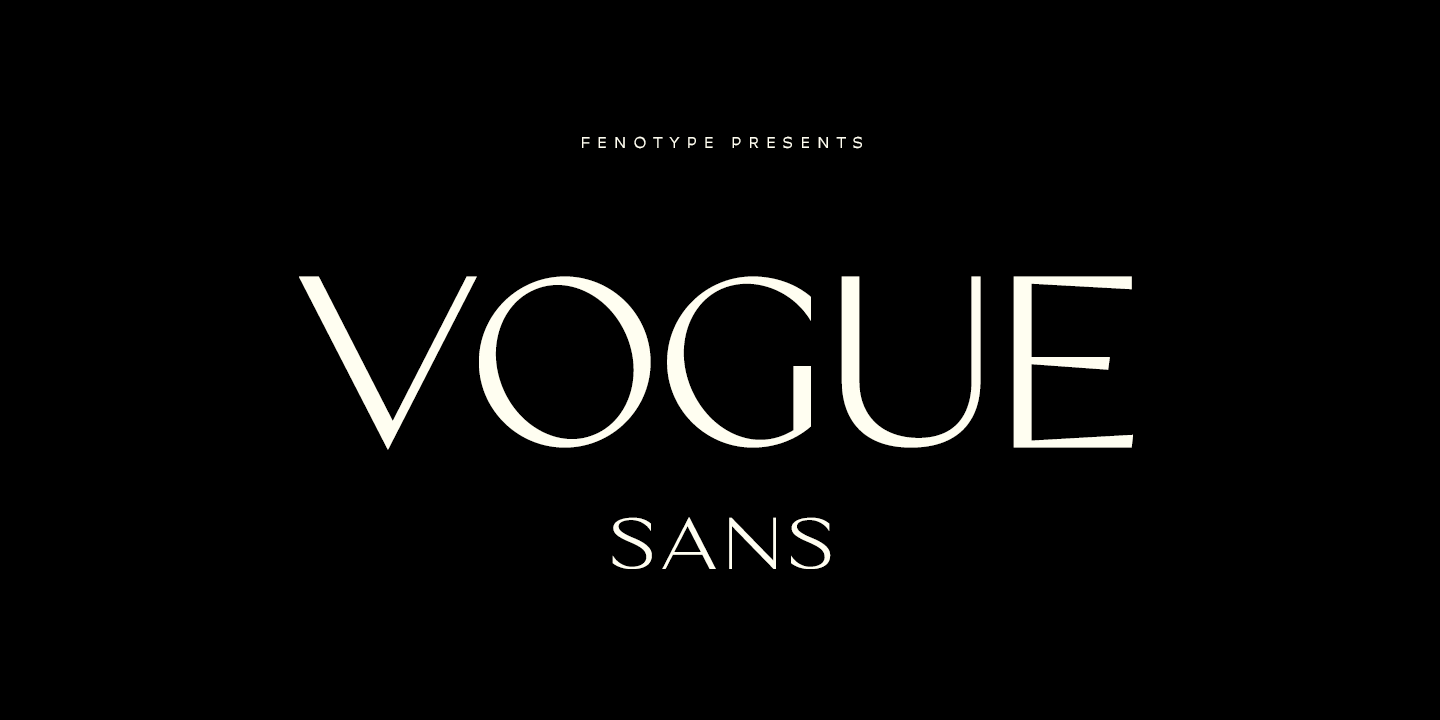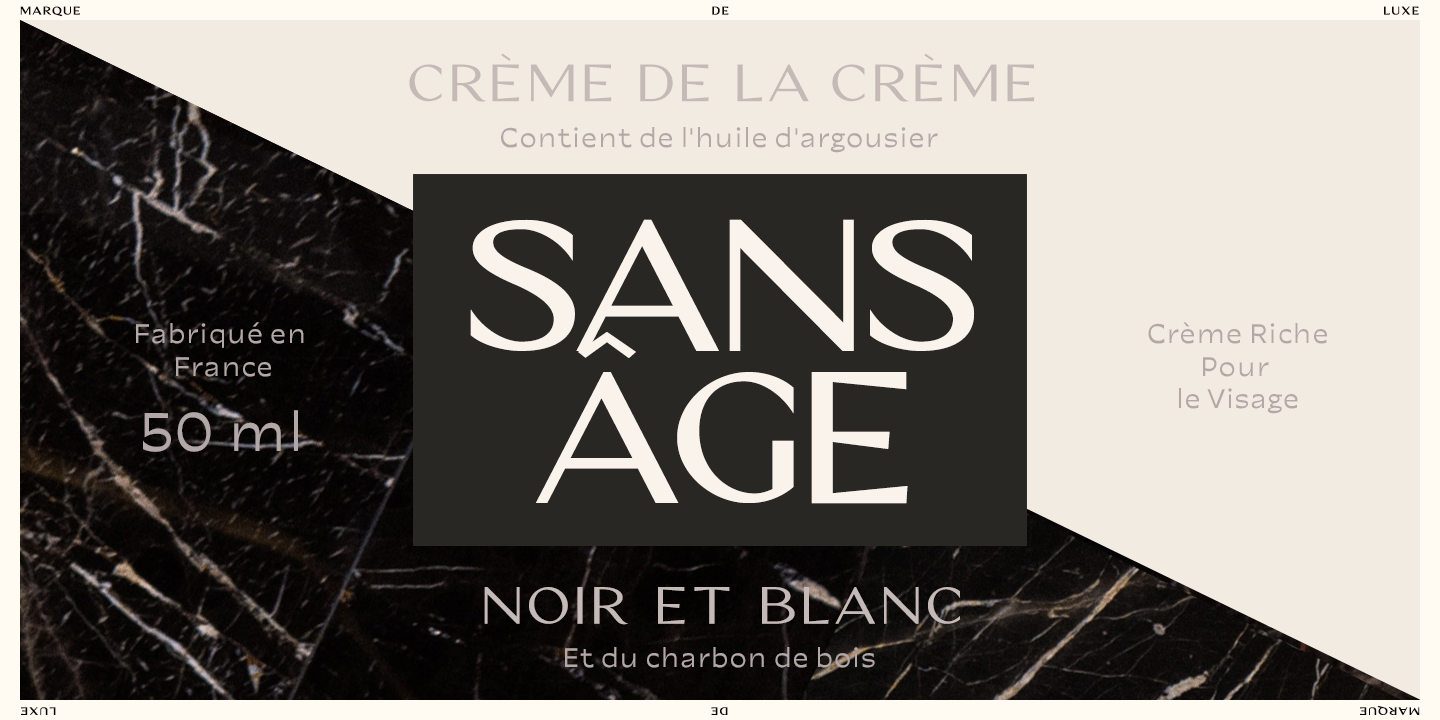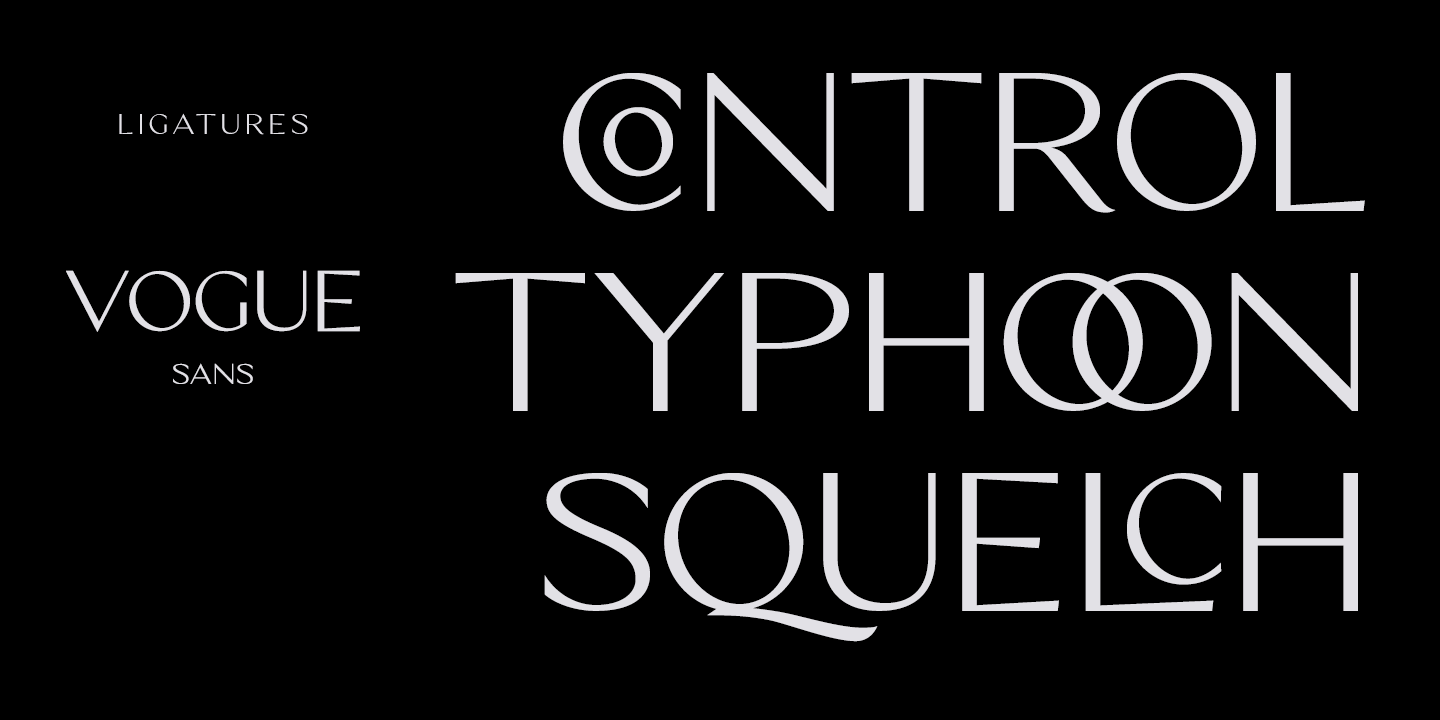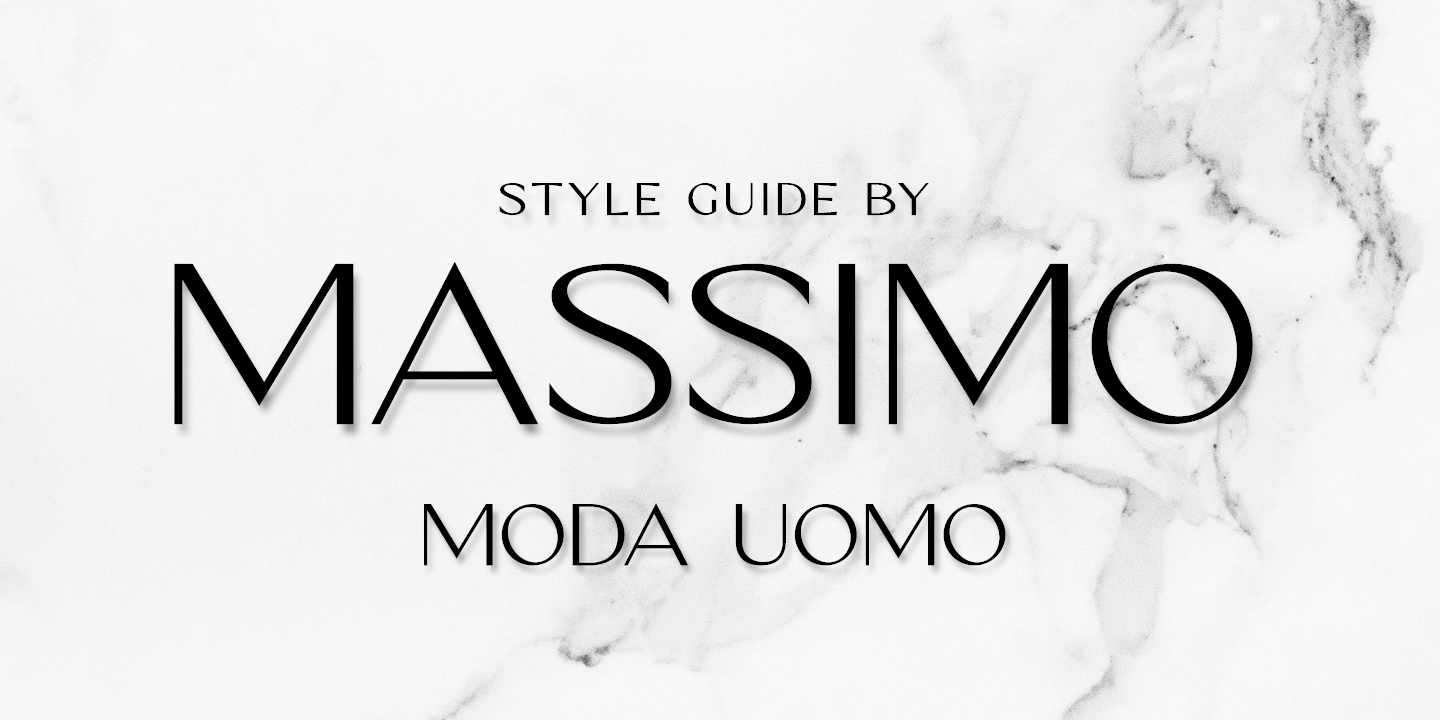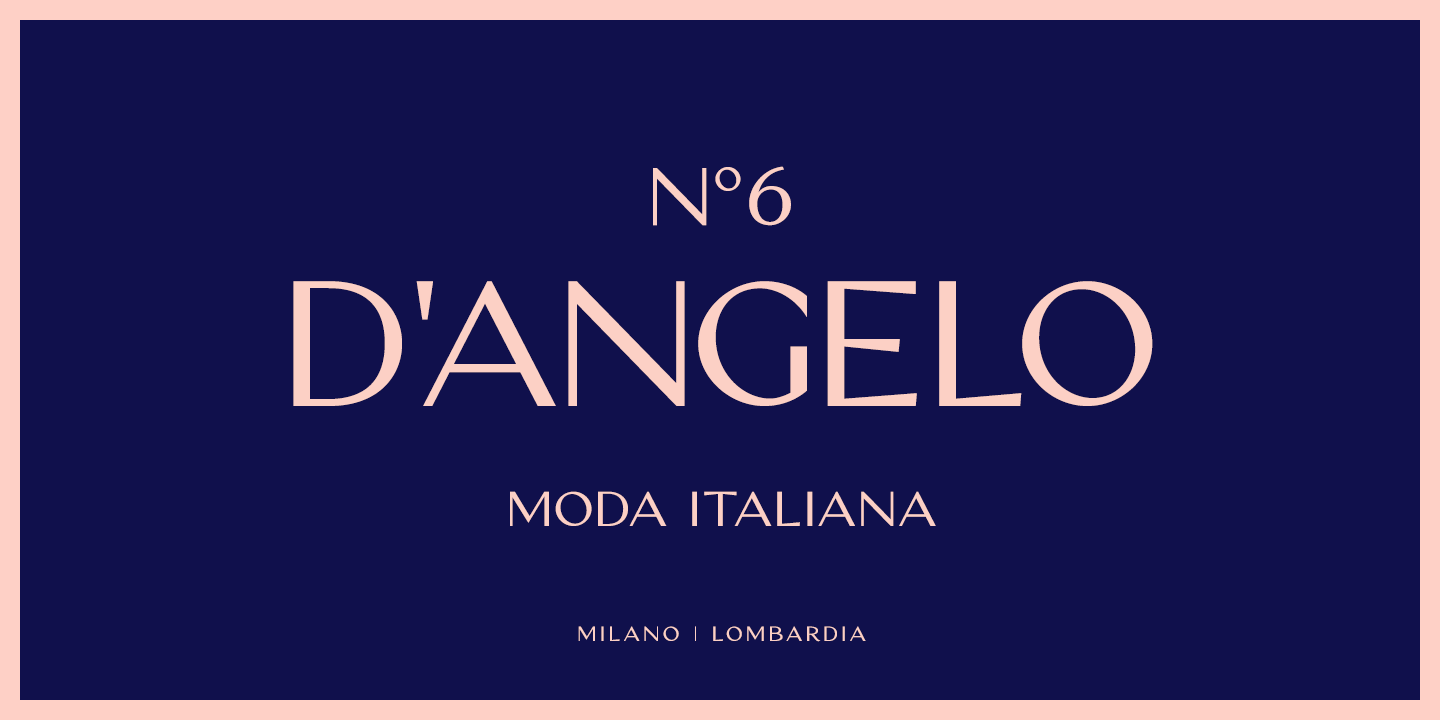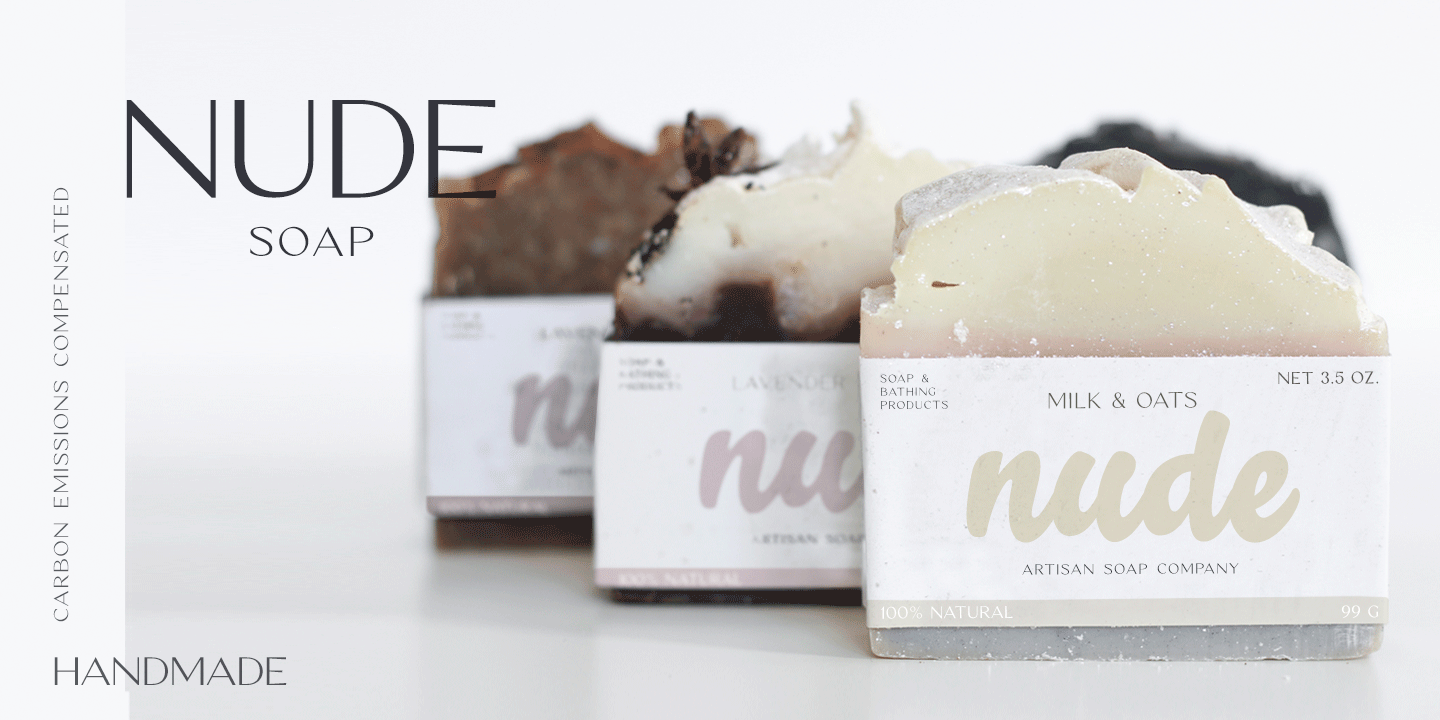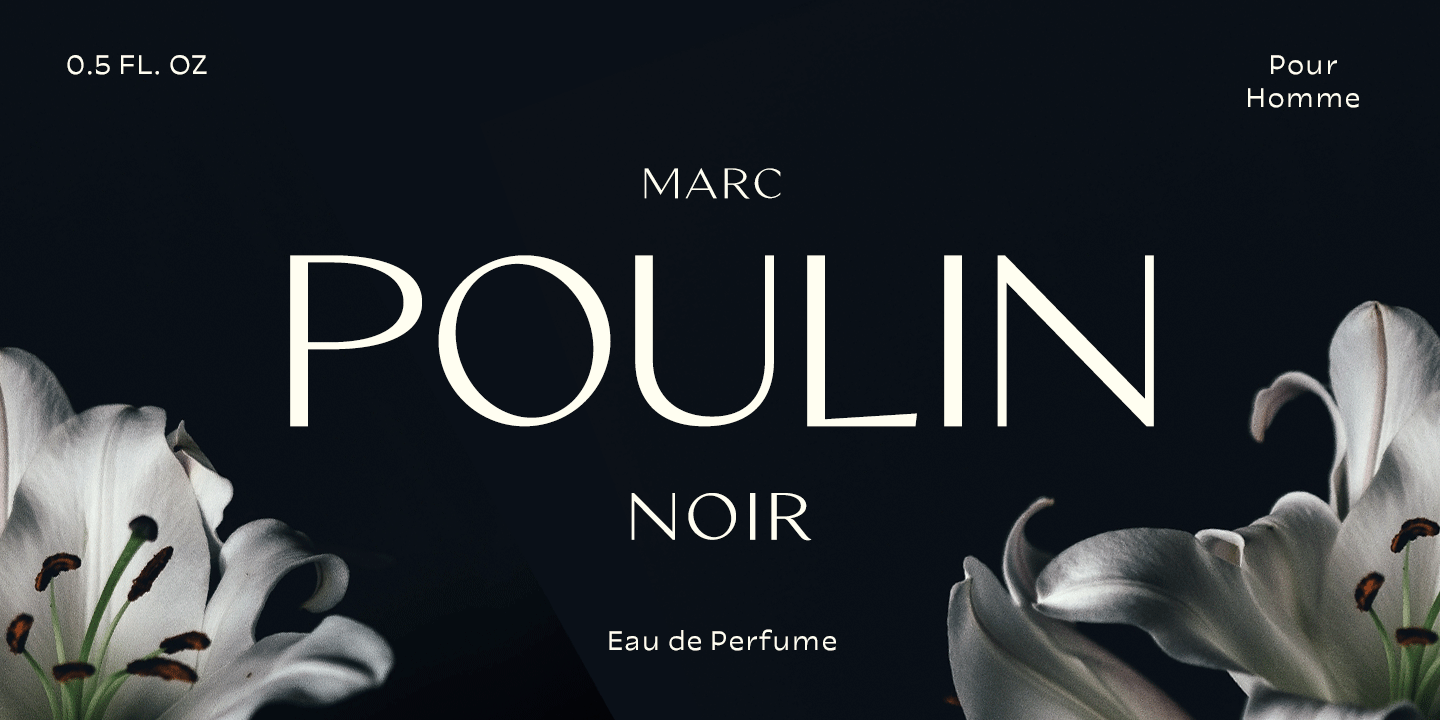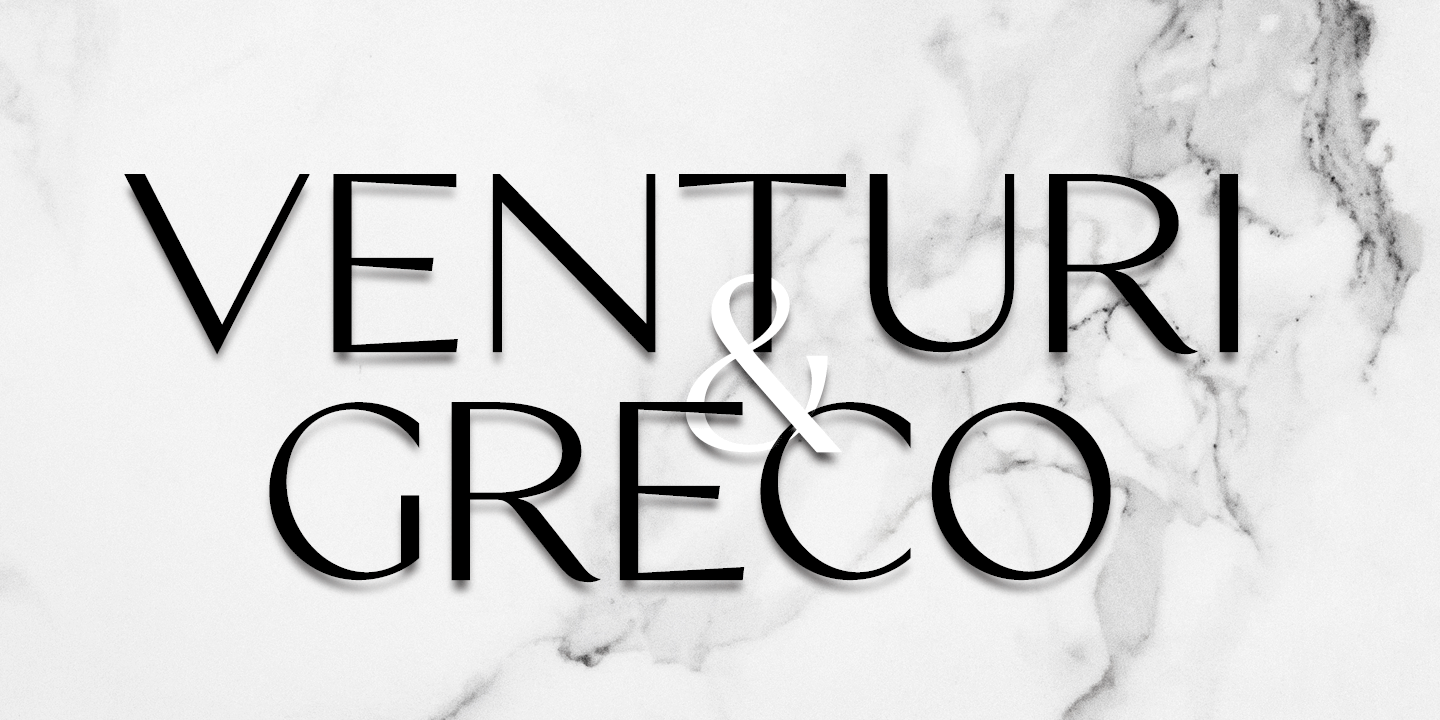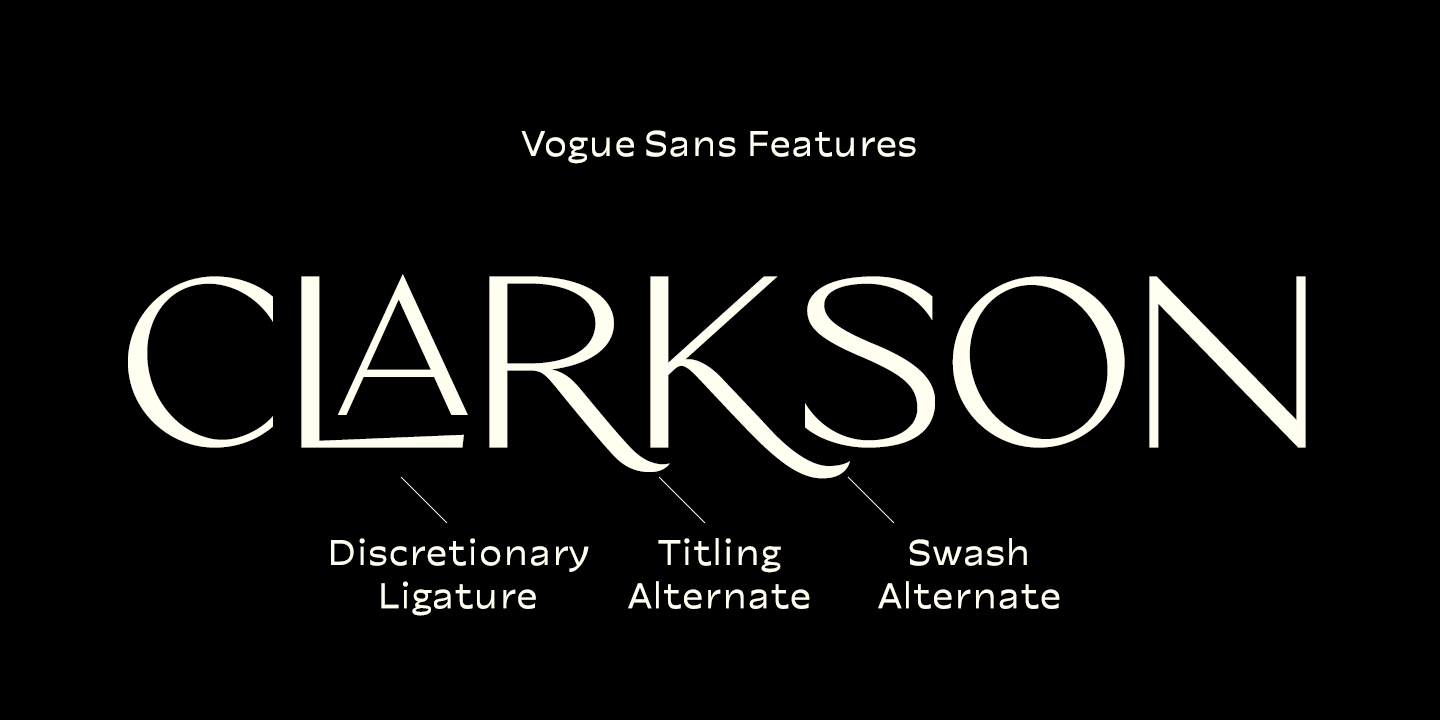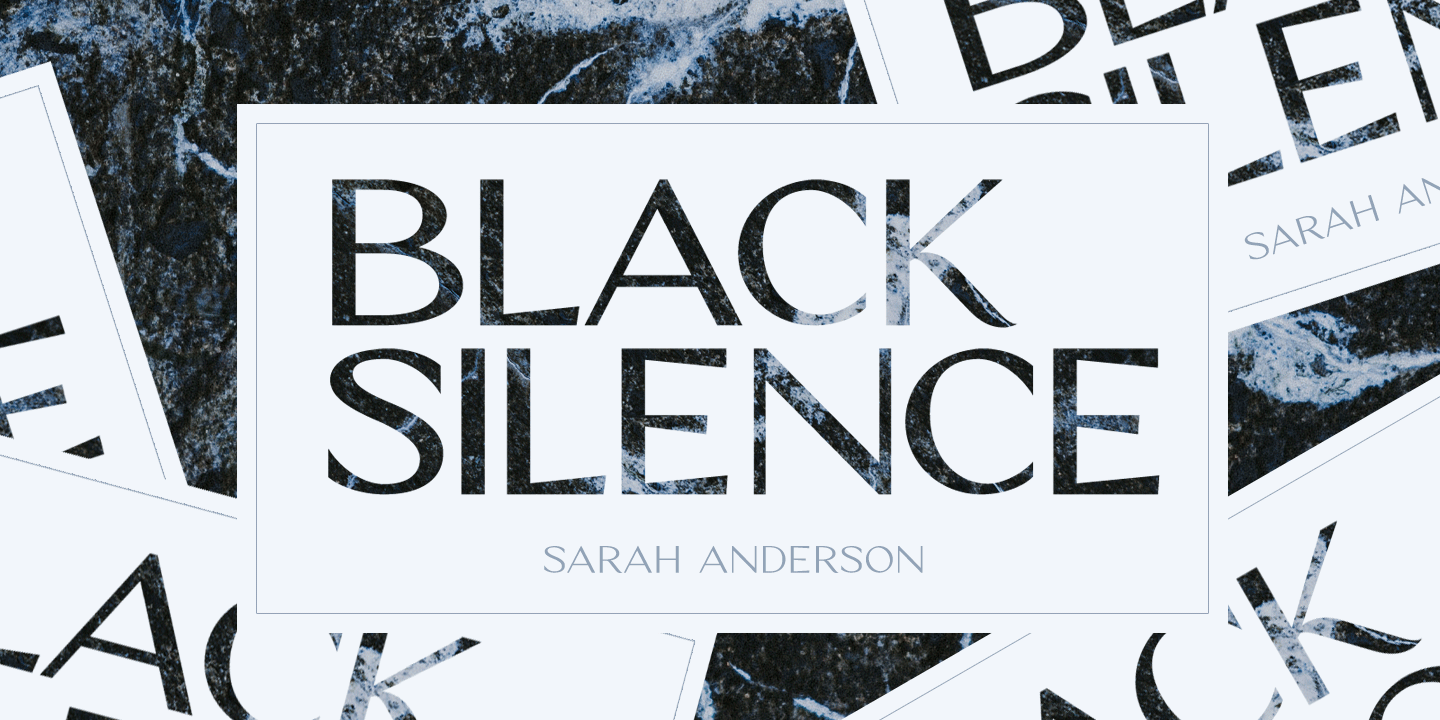
Vogue Sans
Font Family by Fenotype
Vogue Sans is a luxurious high contrast sans serif well suited for fashion and haute couture design or glamorous headlines. Try typing any word or name with Vogue Sans and it'll look great. Vogue Sans is equipped with several interlocking ligatures - CC, CO, LA, LC, LL, LE, OO & TT. Vogue Sans also has Swash & Titling Alternates for letters A K L T X Q R and Stylistic Alternates for letters K and R.
Go chic!